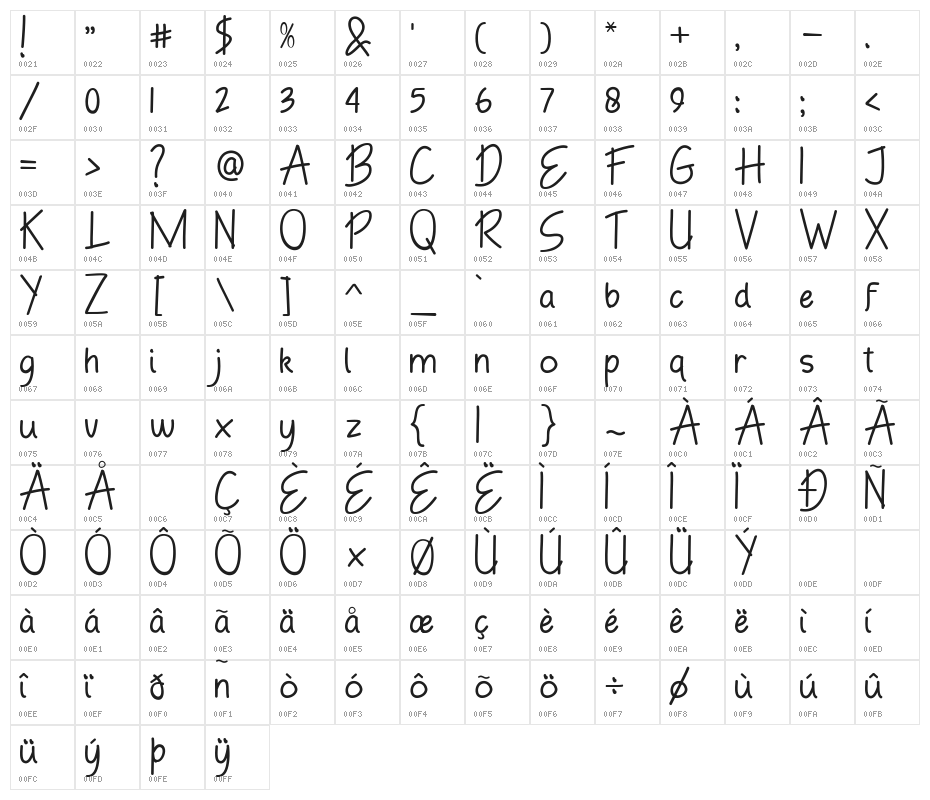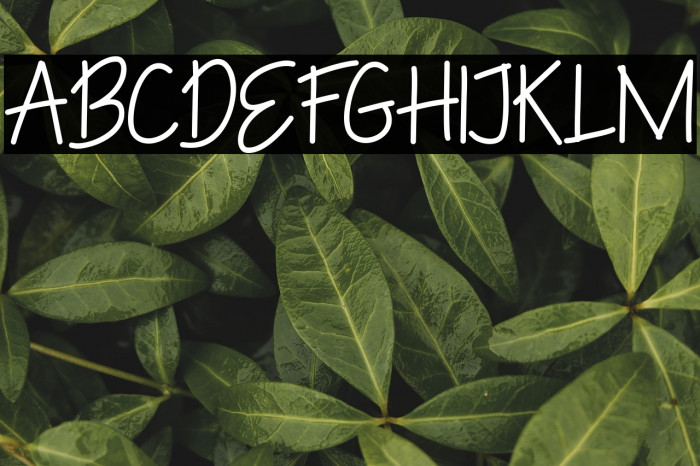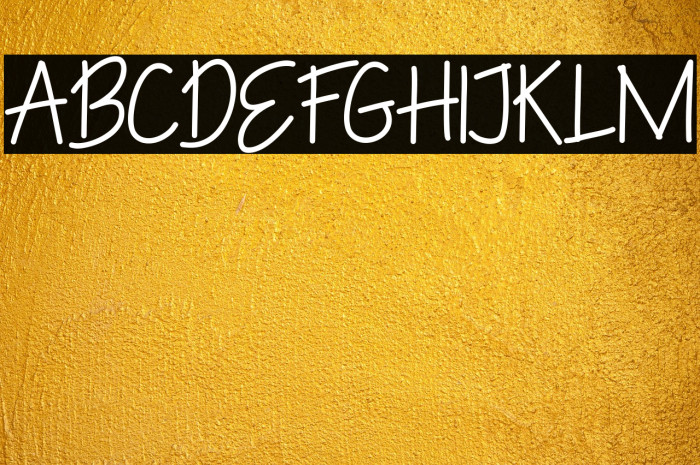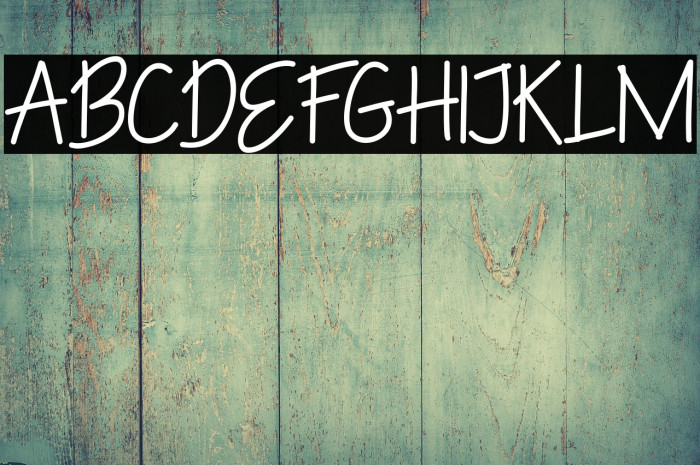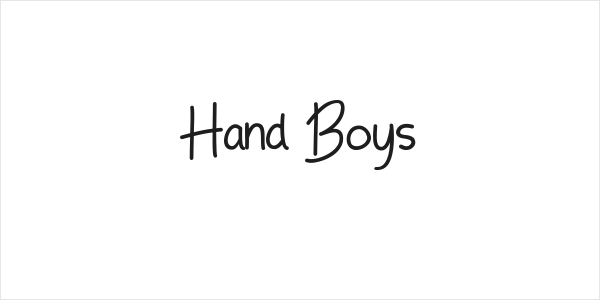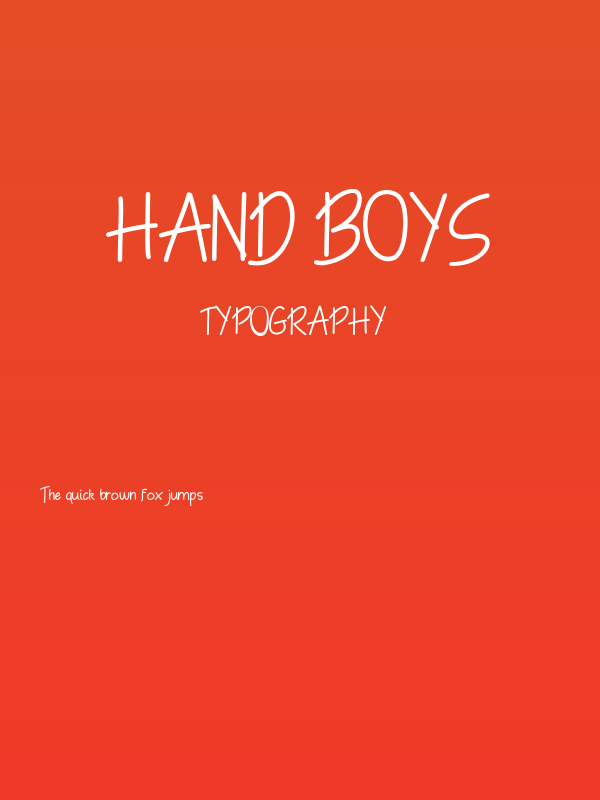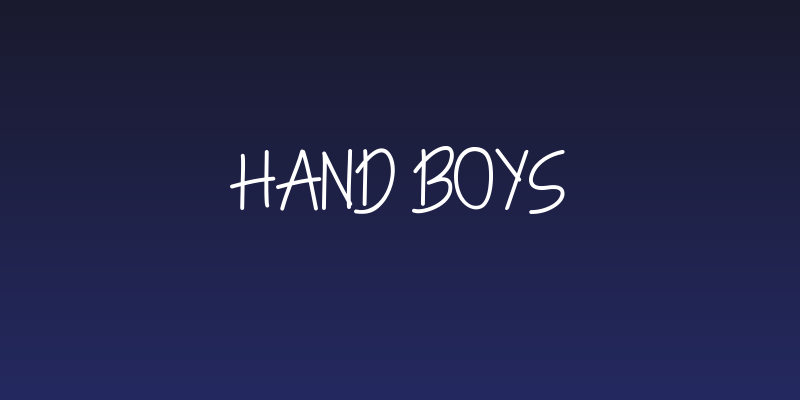
Hand Boys Font
Hand Boys Description
This playful and casual font features a handwritten style with a smooth, flowing appearance. The uppercase letters are slightly slanted, giving a dynamic and energetic feel, while the lowercase letters maintain a consistent roundness that enhances readability. The numbers and special characters are well-integrated, matching the overall informal aesthetic. The strokes are consistent in thickness, providing a balanced look that is neither too bold nor too light. This font is perfect for projects that require a personal touch, such as greeting cards, children's books, or creative branding.
| Use Case | Logos, Headlines, Informal Text |
| Proposed Projects | Ideal for greeting cards, children's books, and creative branding. |